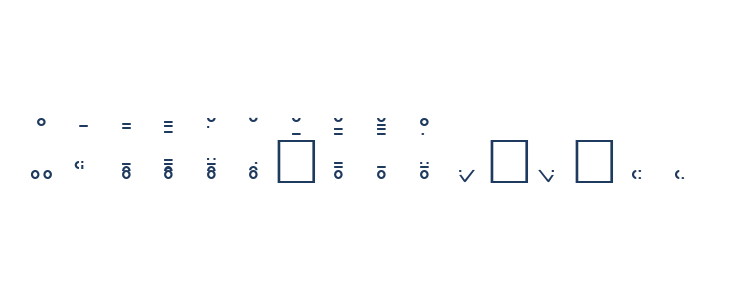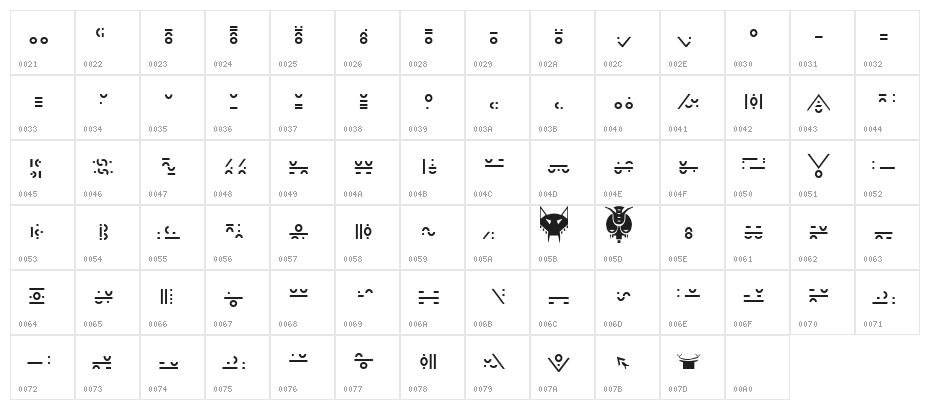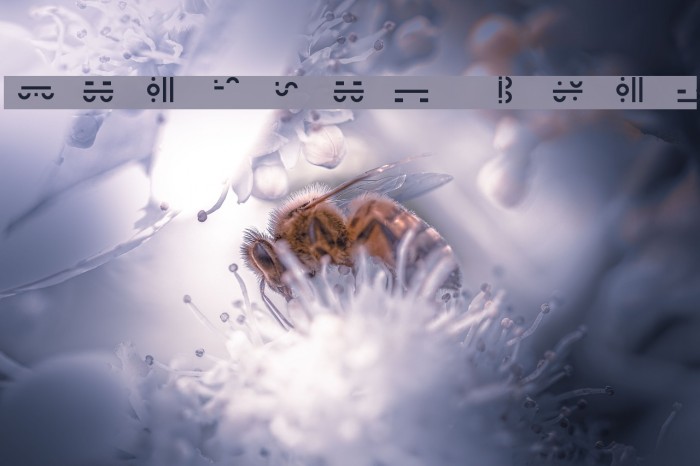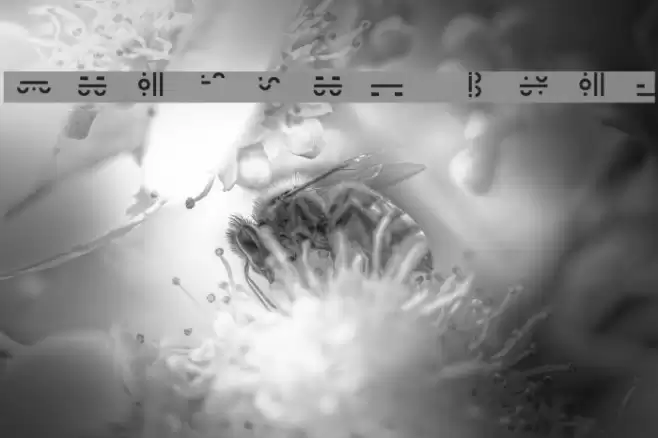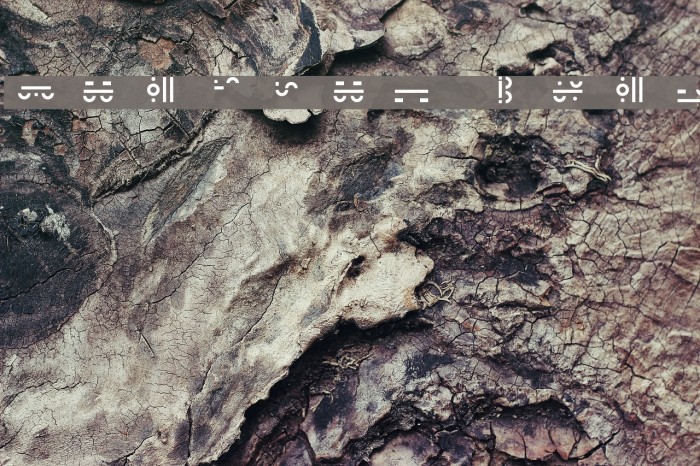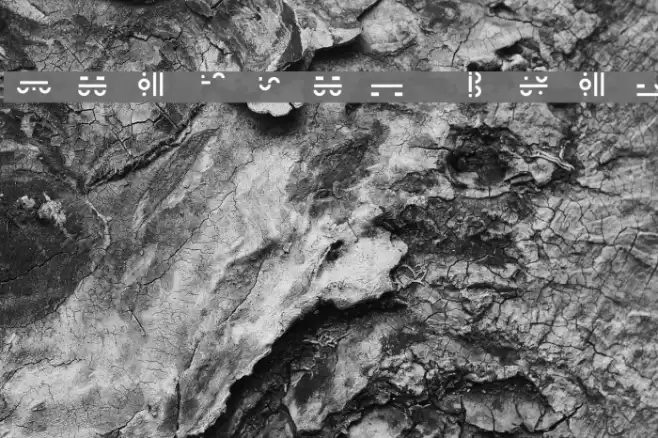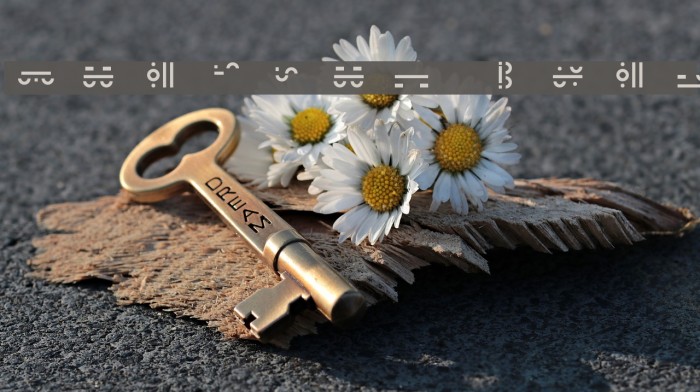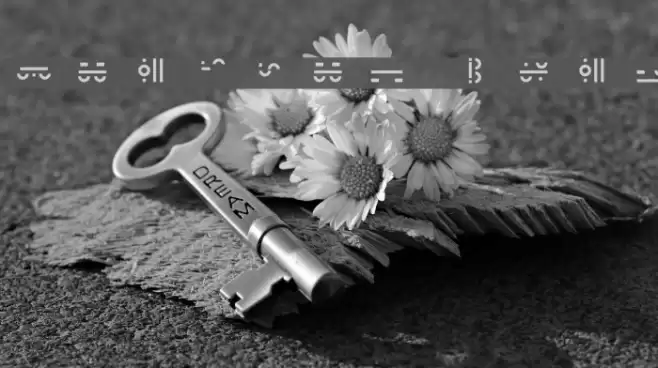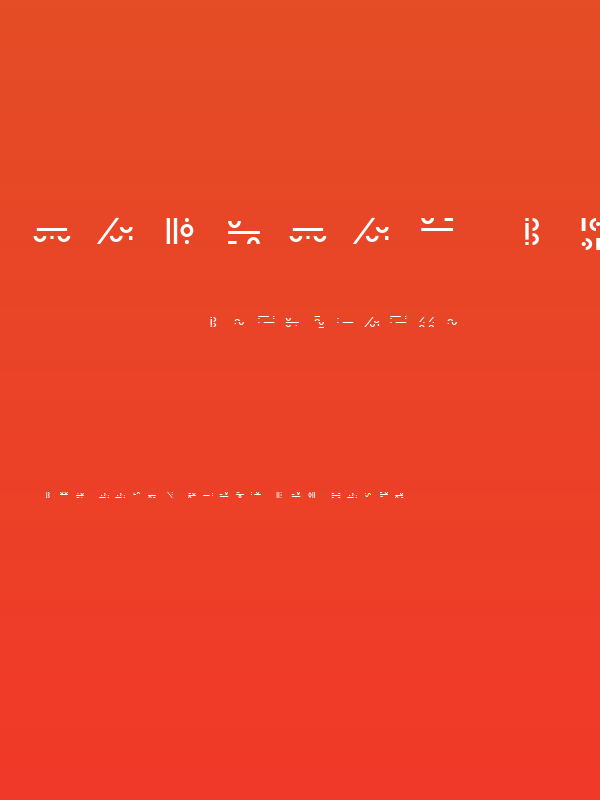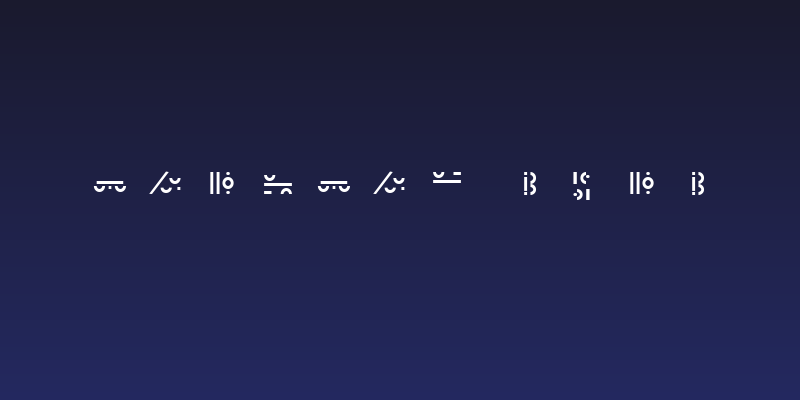
Maximal Text Font
Maximal Text Description
This font features a highly decorative and abstract design, with characters composed of geometric shapes and intricate patterns. Each letter and symbol is uniquely crafted, incorporating dots, lines, and curves to create a visually striking appearance. The font lacks traditional readability, focusing instead on artistic expression and visual impact. It is characterized by its bold strokes and symmetrical arrangements, giving it a futuristic and avant-garde feel. The characters are evenly spaced, maintaining a consistent visual rhythm across the text. This font is ideal for projects that prioritize aesthetic appeal over legibility, such as artistic posters, album covers, or digital art pieces.
Giedi Prime
Overall StyleFuturistic, Avant-garde
Use CaseArtistic projects, visual displays
Proposed ProjectsArtistic posters, album covers, digital art pieces, experimental design projects.